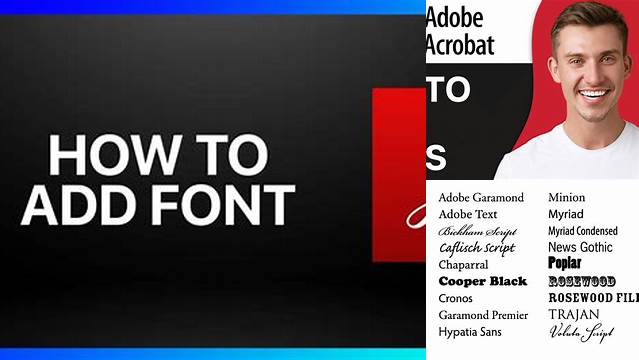
Unlock Adobe Acrobat's Cursive Fonts: A Creative Guide
Hey guys, ever been stuck in Adobe Acrobat, wanting to add a touch of elegance or a personal flair to your documents, but found yourself staring blankly at the font options? You know, those beautiful, flowing script styles that just scream sophistication? Well, you're in the right place! Today, we're diving deep into the world of cursive fonts in Adobe Acrobat. It’s not as straightforward as picking a Times New Roman, but with a little know-how, you can totally transform your PDFs from mundane to magnificent. We'll cover everything from finding them to using them effectively, so get ready to make your documents stand out!
Exploring the Enchanting World of Cursive Fonts
Let's kick things off by exploring what makes cursive fonts so darn special. These aren't your everyday, run-of-the-mill typefaces. Cursive fonts, often referred to as script fonts, mimic the fluid, connected strokes of handwriting. Think of elegant wedding invitations, fancy calligraphy, or that personal handwritten note you love to receive – that's the vibe we're talking about! They bring a sense of artistry, personality, and a touch of romance or formality to any text. In Adobe Acrobat, while it might not have a dedicated tab labeled "Cursive Fonts," it certainly supports them. The magic happens when you access the vast library of fonts installed on your system. Acrobat, being a robust PDF editor, taps into your computer's font collection. So, the availability of beautiful cursive styles largely depends on what you've got installed. We’re going to help you navigate this, ensuring you can inject that perfect scripty charm whenever you need it. Get ready to discover how these flowing letters can elevate your PDFs!
Finding Hidden Cursive Gems for Your PDFs
So, how do you actually find these elusive cursive fonts within Adobe Acrobat? It’s a bit of a treasure hunt, really. First things first, Adobe Acrobat uses the fonts installed on your operating system (Windows or macOS). This means the more fonts you have on your computer, the more options you'll have in Acrobat. To find them, you'll typically go to the 'Edit PDF' tool, select text, and then look at the font dropdown menu in the right-hand formatting pane. You won't see a specific section for 'cursive.' Instead, you'll need to scan the list for names that sound like script or calligraphy. Look for terms like 'Script,' 'Calligraphy,' 'Handwritten,' or names that simply sound elegant and flowing, like 'Great Vibes,' 'Lobster,' 'Dancing Script,' 'Pacifico,' or 'Brush Script MT.' If you don't see many options, don't sweat it! There are tons of fantastic free and paid font resources online where you can download new cursive fonts. Once downloaded, you'll need to install them on your system, and voila! – they should appear in your Adobe Acrobat font list. Remember, installing fonts is usually a straightforward process, often just a double-click and an 'Install' button. Keep an eye out for fonts that offer good readability, even with their decorative nature. Some very elaborate scripts can be tricky to read in smaller sizes, so choose wisely depending on your document's purpose. This initial step of sourcing and installing is crucial for unlocking your cursive potential in Acrobat.
Leveraging Adobe Fonts for Elegant Scripts
Now, if you're an Adobe Creative Cloud subscriber, you've got a massive secret weapon: Adobe Fonts. This service is integrated directly into Adobe applications, including Acrobat, and offers a huge library of high-quality fonts, many of which are stunning cursive or script styles. To access these, you'll want to open Adobe Acrobat and then navigate to the font selection menu when editing text. You might see a button or option that says 'Find More Fonts' or something similar, which often leads you to the Adobe Fonts interface or prompts you to activate fonts. Alternatively, you can open the main Adobe Creative Cloud desktop app, go to the 'Fonts' tab, and browse or search for script and calligraphy fonts. When you find one you like, simply click the 'Activate' button next to it. Once activated, it syncs across your Adobe applications. Close and reopen Adobe Acrobat to ensure the newly activated font appears in your font list. Adobe Fonts are generally high-quality, optimized for web and print, and very easy to manage. This is arguably the most seamless way to get premium cursive fonts into your Adobe Acrobat workflow without needing to download and install individual files manually. It’s a fantastic resource for ensuring consistency and professionalism in your documents, guys!
Using Cursive Fonts Effectively in Adobe Acrobat
Okay, now that we know how to find and install those gorgeous cursive fonts, let's talk about using them smartly in Adobe Acrobat. Cursive fonts are powerful tools, but like any powerful tool, they need to be wielded with care! The key is balance and readability. While a sweeping calligraphy font might look amazing for a headline or a special announcement, it can be a nightmare to read if used for large blocks of body text. Think about where and why you're using a cursive font. Is it for a formal invitation where elegance is key? A personal note that needs a handwritten feel? Or maybe just a decorative element? For headings, titles, or short, impactful phrases, elaborate scripts can work wonders. They immediately draw the eye and convey a specific mood. However, for paragraphs or any text that needs to be read easily and quickly, it's best to stick to simpler, more legible script fonts or even a classic serif or sans-serif font. Consider the context of your document. A legal document probably doesn't need a whimsical script font, whereas a birthday card definitely could. Always do a test print or a close preview to ensure your chosen cursive font is clear and doesn't look too cluttered at the intended size. Remember, the goal is to enhance your document, not to make it difficult for your audience to understand. Use them strategically to add that special touch!
Enhancing Headings and Titles with Script Fonts
When it comes to making your PDFs pop, using cursive fonts for headings and titles in Adobe Acrobat is a fantastic strategy. These stylish typefaces are perfect for grabbing attention right from the get-go. Imagine a report with a bold, elegant script font for the main title – it instantly signals a level of sophistication and care that a plain font just can't match. It’s like giving your document a stylish makeover! For section headers within your PDF, a slightly more restrained but still decorative script can guide the reader through the content smoothly, creating visual interest without sacrificing clarity. Think of it as breadcrumbs of style leading your reader along. The key here is contrast. Pair your elegant script heading with a clean, readable sans-serif or serif font for the body text. This contrast ensures that your fancy headings stand out and that the main content remains easily digestible. When selecting a script font for a title, consider its weight and style. A light, airy script might suit a wedding invitation, while a bolder, more dramatic script could be perfect for a promotional poster. Always ensure the font is large enough to be easily read from a reasonable distance. Experiment with different script styles – from modern calligraphy to vintage flourishes – to find the perfect fit for the mood and purpose of your document. Using cursive fonts for headings is a simple yet highly effective way to elevate the design and professionalism of your PDFs in Adobe Acrobat.
Adding a Personal Touch with Handwritten Styles
One of the most compelling reasons to use cursive fonts in Adobe Acrobat is their ability to impart a deeply personal touch. In a world increasingly dominated by digital and impersonal communication, a well-chosen script font can make your PDF feel more like a thoughtful, human creation. This is especially powerful for specific types of documents. Think about creating personalized certificates, thank-you notes, digital invitations, or even just adding a signature-like flourish to a digital form. When you use a font that mimics natural handwriting, it bridges the gap between the digital and the tangible, making the recipient feel more connected. It's all about evoking emotion and connection. For instance, a small business owner might use a friendly, flowing script font for their 'About Us' page in a company brochure PDF to convey approachability and passion. Or perhaps you're creating a digital scrapbook page and want to add captions that look like they were written by hand. Adobe Acrobat allows you to seamlessly integrate these fonts. Choose script fonts that resemble genuine handwriting – look for variations in stroke thickness and a natural-looking flow. Avoid overly ornate or rigid scripts if your goal is warmth and authenticity. The beauty of using these fonts in Acrobat is that they remain editable and scalable, unlike a scanned image of handwriting. You can type out your message, select your favorite handwritten-style font, and boom – instant personal charm. This capability transforms generic PDFs into something much more intimate and memorable.
Font Embedding: The Key to Consistent Cursive Display
Let's talk about a crucial technical aspect when working with cursive fonts in Adobe Acrobat: font embedding. This is the magic that ensures your beautifully chosen script fonts appear exactly as you designed them on any computer, not just yours. When you create a PDF, you have the option to embed the fonts used within it. This means the font file itself (or a subset of it) gets included directly into the PDF document. Why is this so important for cursive fonts? Because script fonts are often unique and less common than standard system fonts. If you don't embed them, and the person opening your PDF doesn't have that specific cursive font installed, Adobe Acrobat (or whatever viewer they're using) will try to substitute it with a similar font it does have. The result? Your elegant calligraphy might turn into a clunky block letter, completely destroying the intended aesthetic. To embed fonts in Acrobat, you typically go to File > Save As Other > PDF/A (which often forces embedding) or use advanced options during saving or printing. Look for settings like